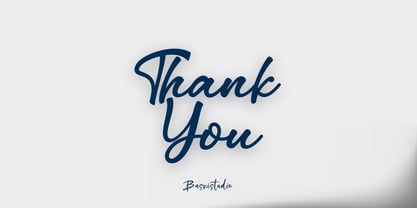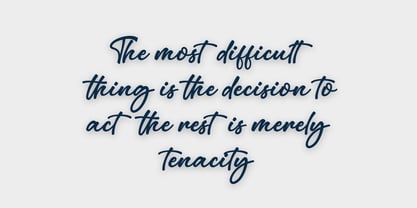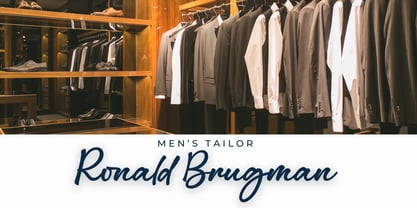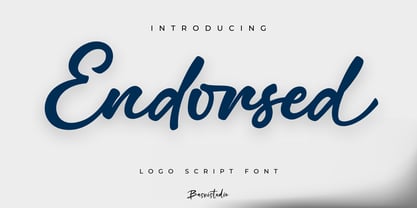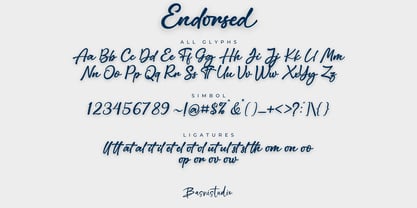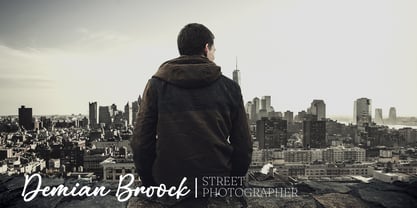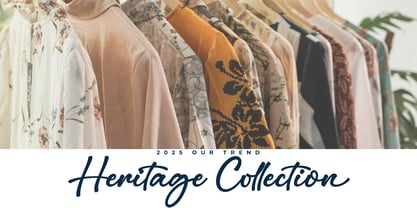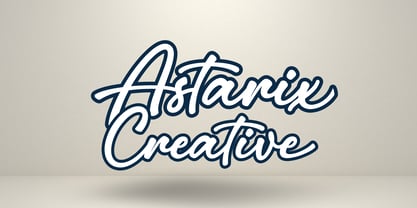
Endorsed
Introducing Endorsed Logo Script Font
Endorsed Logo Script Font, made by Naturaly Bold Script With Authentic Style.
This Font is perfect for an magazine, clothes, quotes, and so much more. This font is PUA encoded, which means you can access all of the glyphs.
• ligatures
• Multilingual Support ( Support for 90 languages )